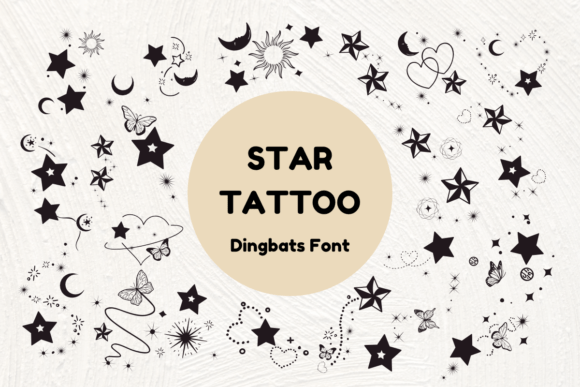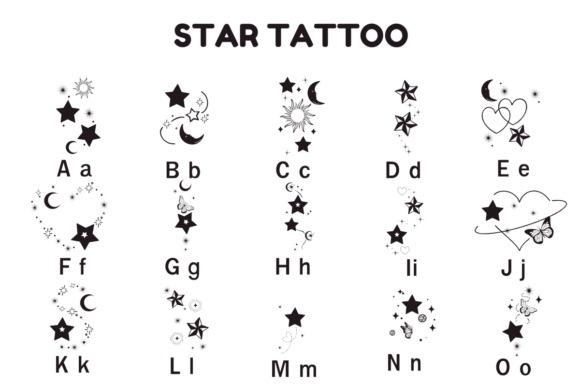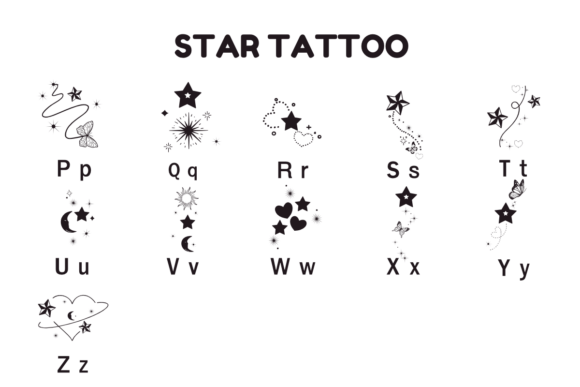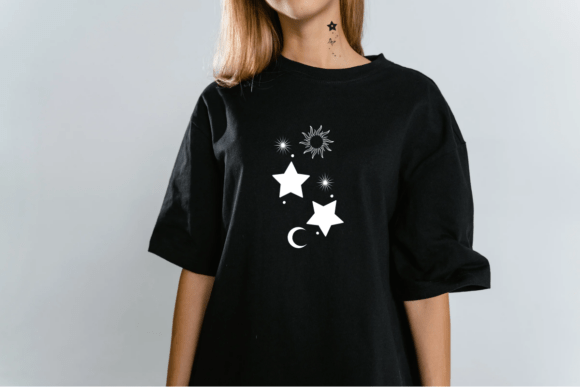
Star Tattoo Font
About the Star Tattoo Font
From logos to headlines, the Star Tattoo Font is the perfect choice for making a lasting impression. Star Tattoo
is a mystical and trendy dingbats font inspired by celestial tattoo art. This collection includes beautifully illustrated stars, moons, suns, butterflies, and more—perfect for creating spiritual designs, boho branding, posters, stickers, and astrology-themed projects. Add a cosmic charm to your visuals with this enchanting icon set.